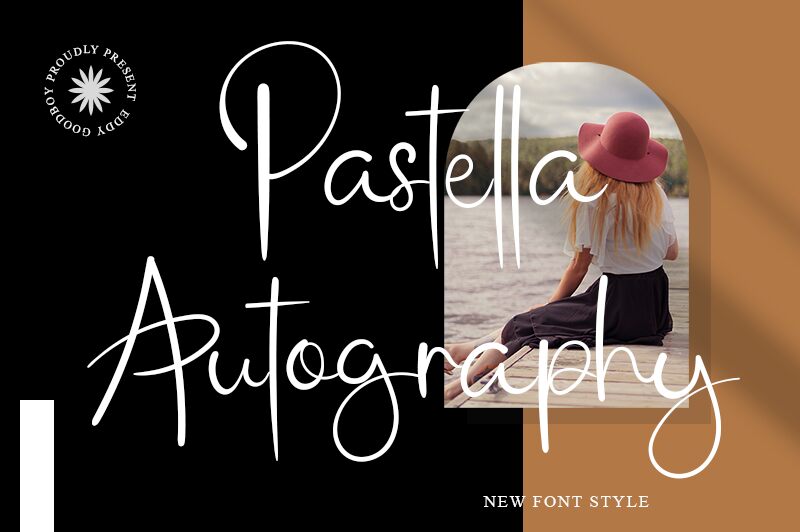
Introducing Pastella Autography, a thin handwritten font by Nur Edi Prayitno. Perfect for creating unique logos, stylish invitations, or giving your content a personal touch. Showcase your creativity with this versatile font!
Pastella Autography
Nur Edi Prayitno